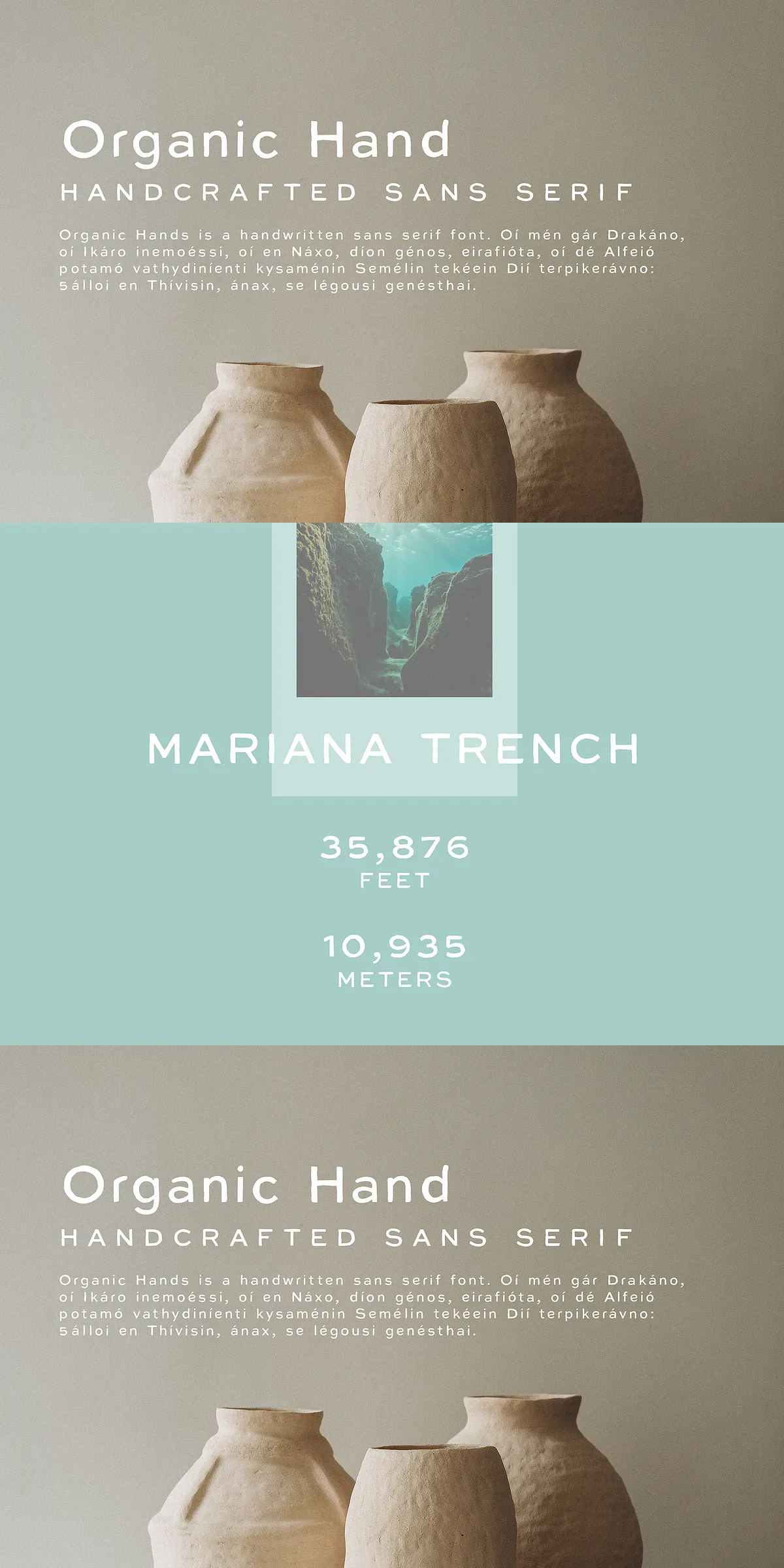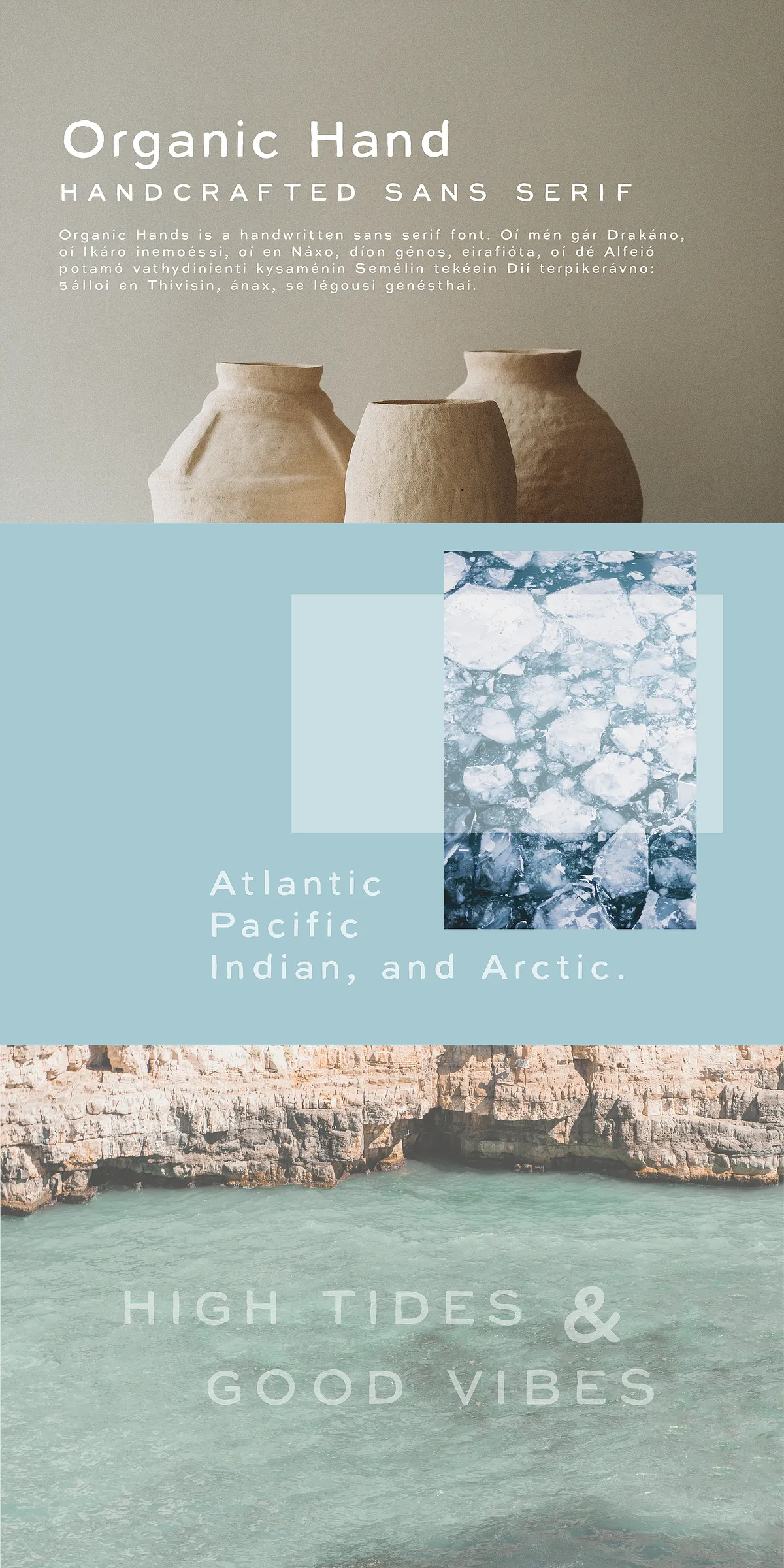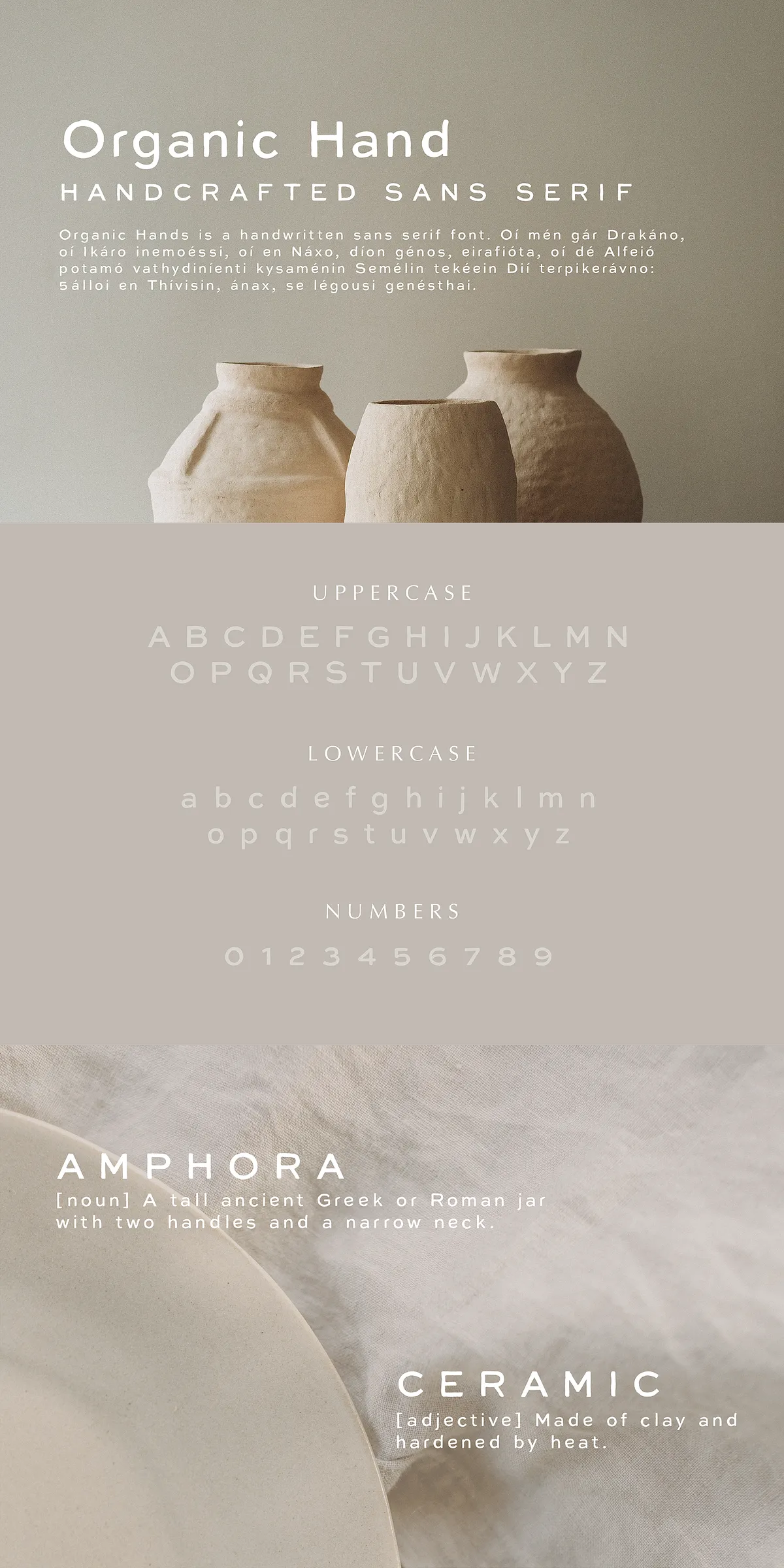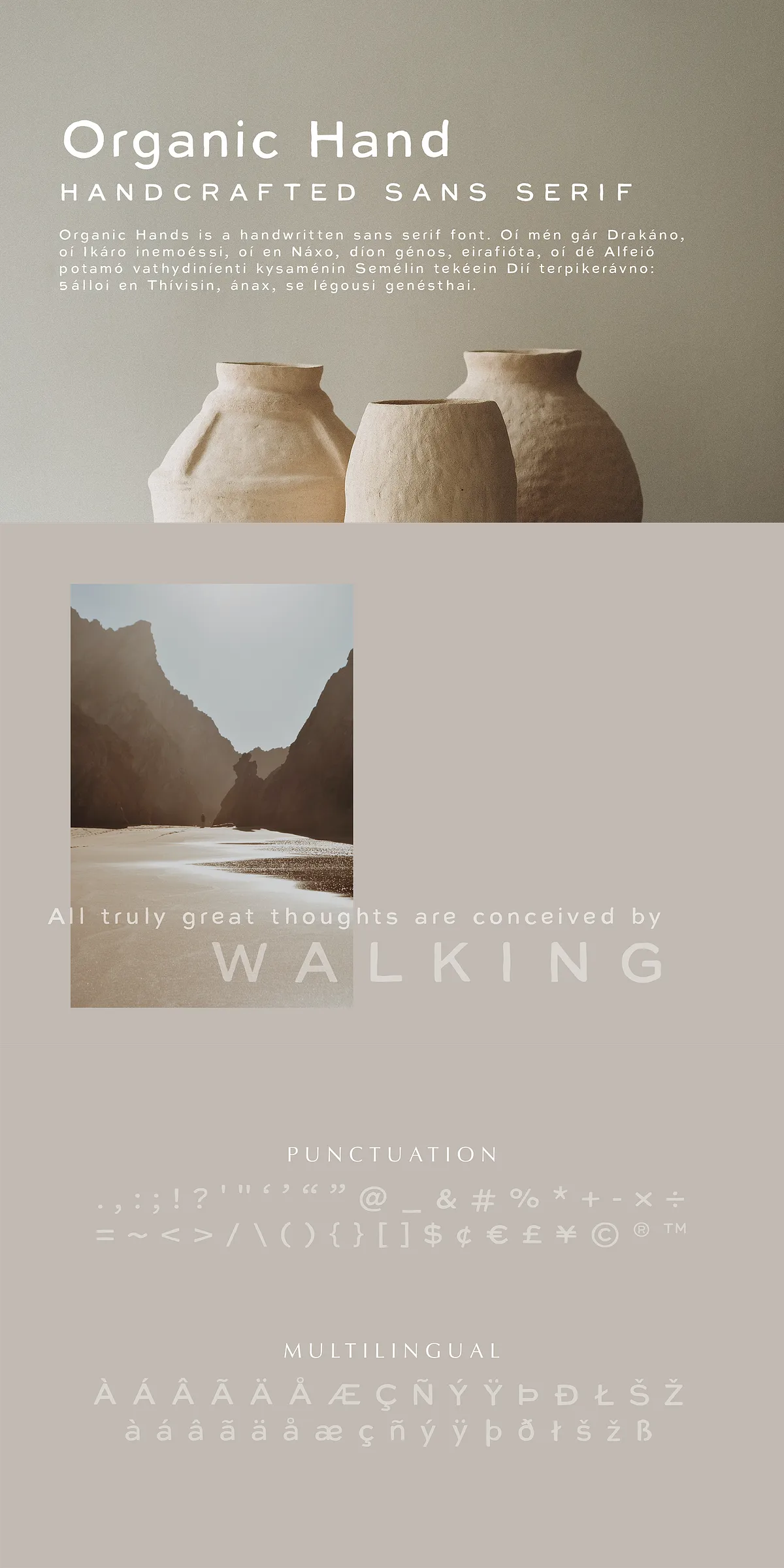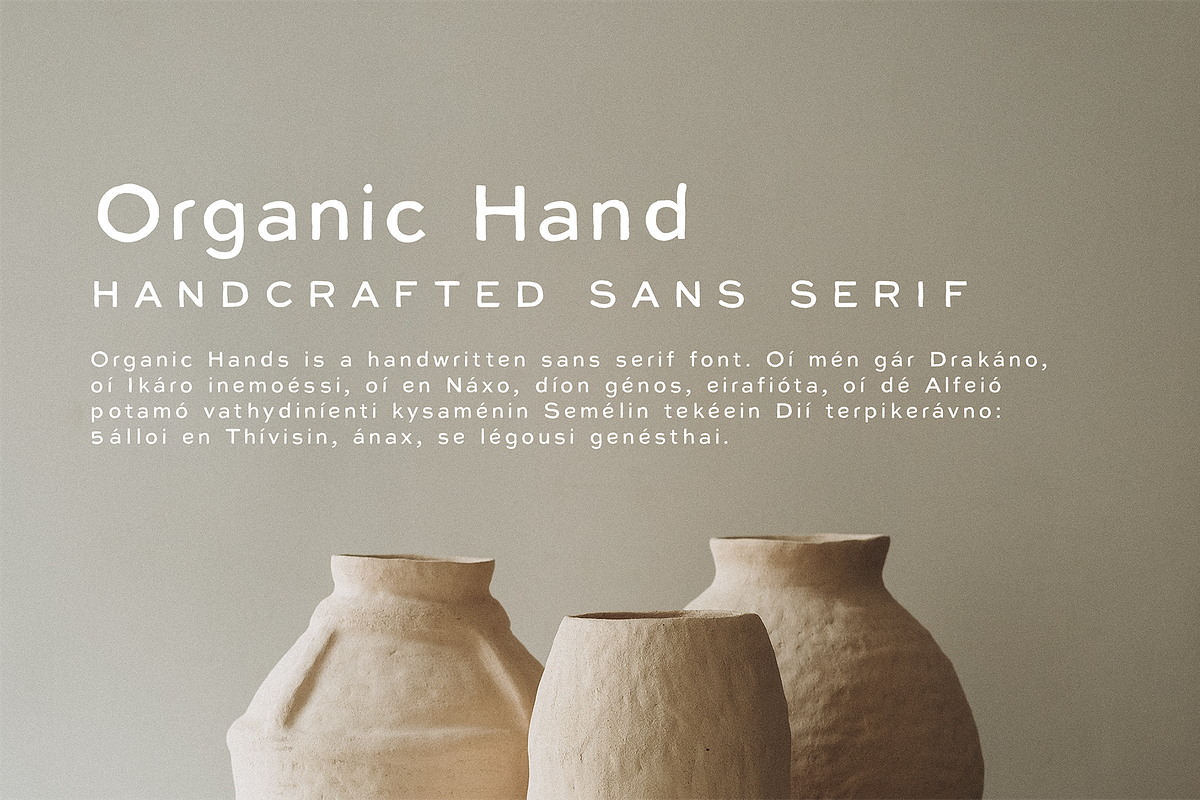
Meet Organic Hand—a bold new voice in typography that dares to be both effortlessly human and strikingly clean. This isn’t just another font; it’s a dynamic fusion of the spontaneity of handwriting and the precision of a sans serif structure. With every stroke, Organic Hand captures the soul of authentic creation—unfiltered, expressive, and full of life. Whether you’re building a brand identity, designing a campaign, or adding personal flair to your digital content, this typeface delivers character with clarity.
Why Organic Hand Stands Out
Organic Hand breaks the mold by blending two seemingly opposite worlds: the raw authenticity of hand-drawn lettering and the sleek elegance of modern minimalism. The result? A font that feels personal, yet professional—unique, yet universally usable. Its natural flow mimics real handwriting, with slight variations in stroke weight and rhythm that give it depth and emotion. Yet, it’s built on a clean, geometric foundation, ensuring legibility, consistency, and visual harmony across all sizes and mediums.
Designed for Real-World Creativity
Organic Hand isn’t just for aesthetics. It’s built for action—ready to power your most demanding design projects across industries and platforms.
Perfect For:
- Branding & Logos: Create memorable identities that feel human, approachable, and instantly recognizable. Ideal for lifestyle brands, wellness studios, artist collectives, and boutique businesses.
- Social Media & Digital Content: Stand out in crowded feeds with posts, stories, and reels that carry personality. Whether it’s a quote, a product feature, or a campaign slogan, Organic Hand turns text into emotion.
- Invitations & Stationery: Elevate wedding invites, baby showers, event announcements, and thank-you cards with a warm, handcrafted touch that feels personal and heartfelt.
- Graphic Design & Packaging: Add authentic character to product boxes, labels, posters, and editorial layouts. Its balance of softness and structure makes it ideal for both bold statements and subtle accents.
Unleash Your Creative Voice
Organic Hand isn’t about following trends. It’s about expressing you. It’s for designers who want more than just a tool—they want a partner in storytelling. It’s for brands that value authenticity. For creators who believe that typography should feel as good as it looks.
Whether you’re crafting a heartfelt message, launching a new brand, or just adding soul to your next project—let Organic Hand bring the human touch to every word.